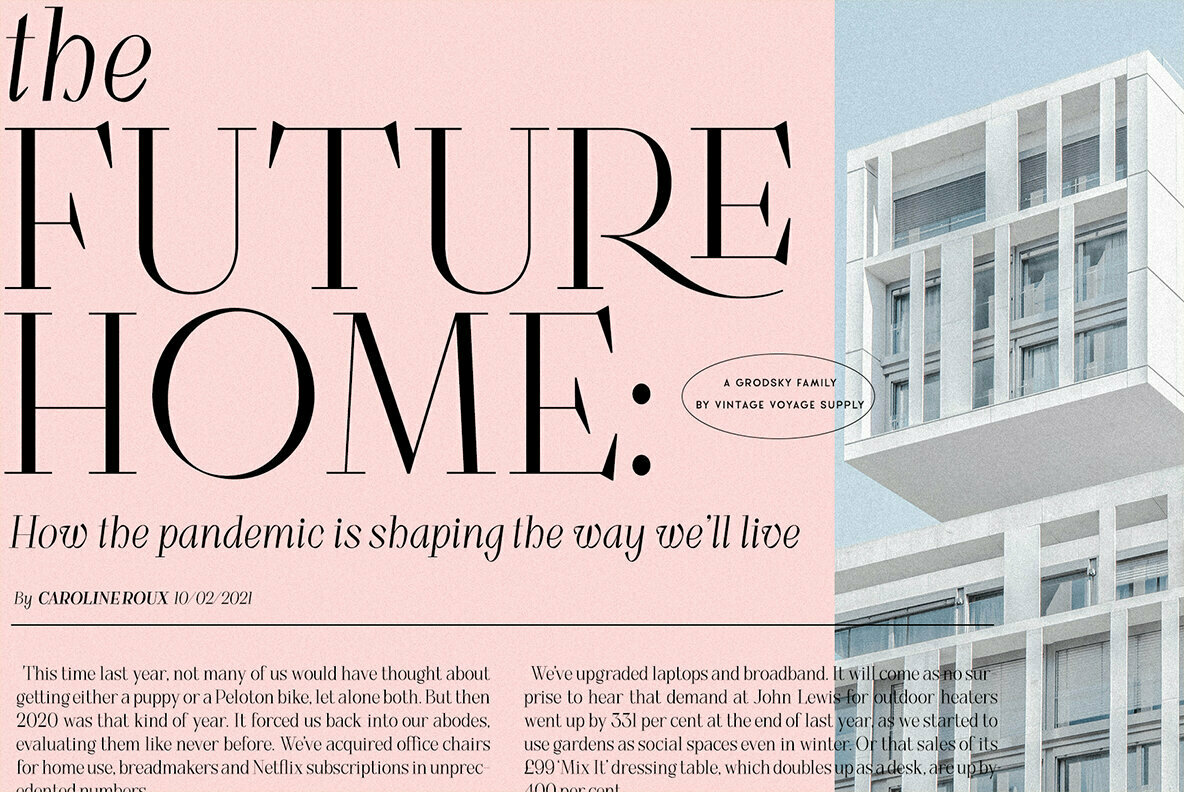
Grodsky Font
Grodsky is a modern high contrast Antiqua with well-defined, recognizable features. Based on the architecture of classic Antiqua fonts, Grodsky is typical of the typefaces from the first half of the 20th century: pronounced serifs, contrasting geometry, and an interplay of right angles and flowing lines. Grodsky has a lot of stylistic alternates and ligatures and true small caps. They give you more authentically typographic style. Grodsky comes with oldstyle and modern, fraction and tabular figures. The font is well suited for both headlines and body text. Grodsky comes in two weights and true Italics. Multilingual.